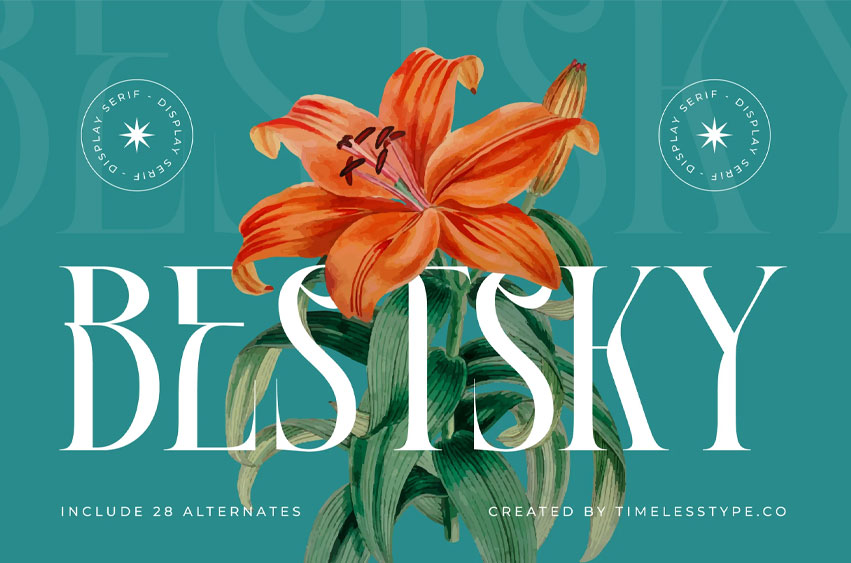
Bestsky Font is a refined modern display serif font defined by high contrast strokes, elongated silhouettes, and elegant sculpted curves. Inspired by luxury editorial design and botanical illustration aesthetics, this typeface delivers a graceful and sophisticated visual presence—perfect for fashion branding, premium packaging, magazine layouts, invitations, and artistic logo work. Its clean yet expressive structure brings timeless to every composition.
Featuring 28 stylistic alternates, Bestsky provides versatile creative options for crafting unique headline treatments, elegant typographic compositions, and decorative lettering. Its slender serifs, flowing terminals, and polished forms make it an ideal choice for designers seeking a classy, stylish, and beautifully distinctive serif display font.